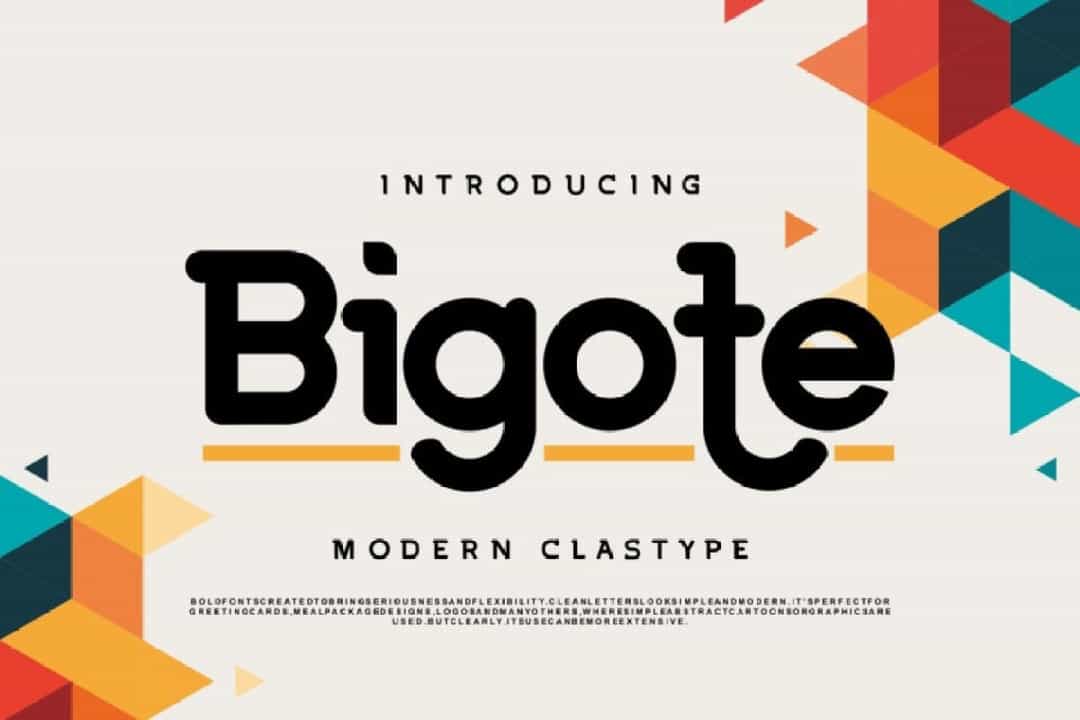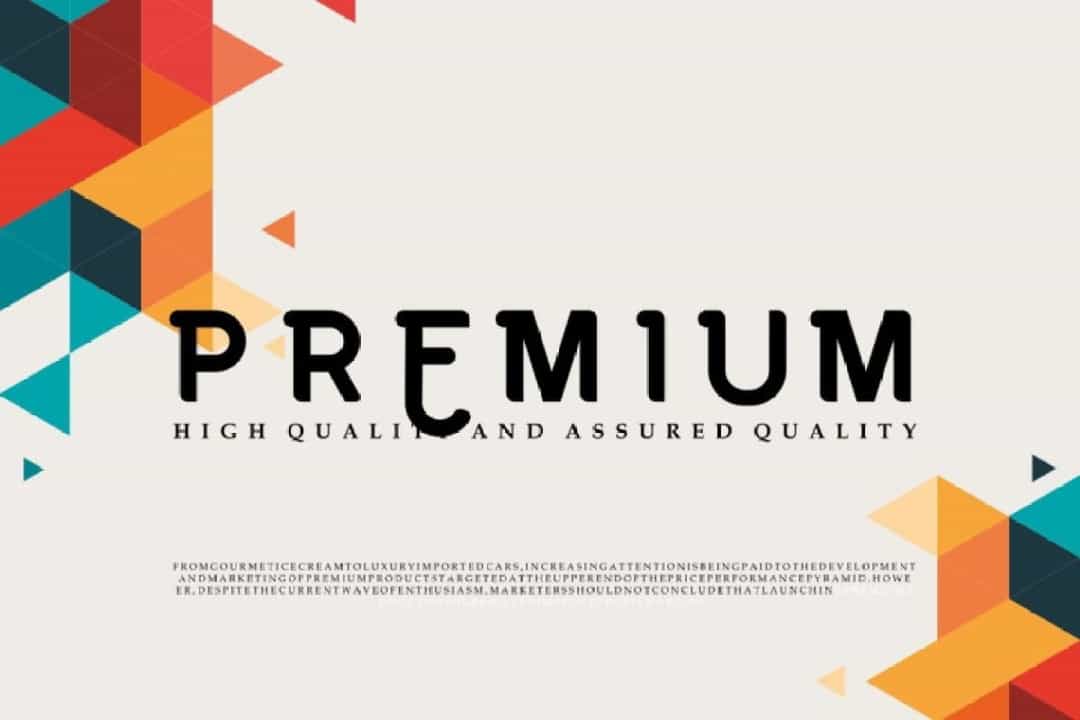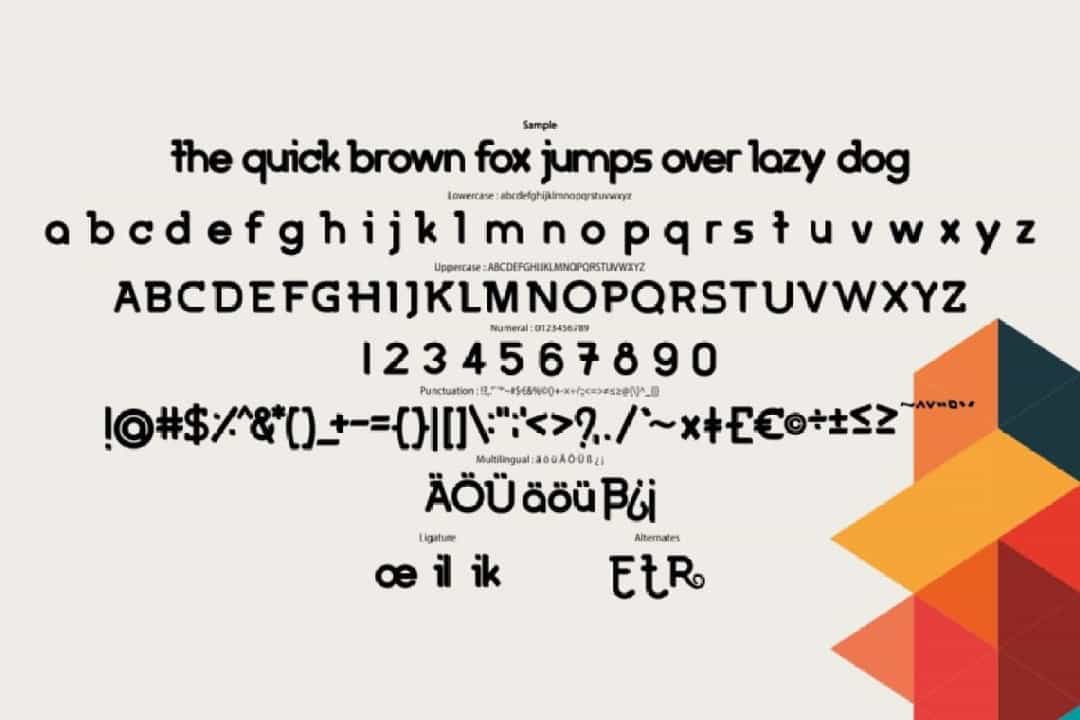
Bigote is a sophisticated and minimalist display font that contains lettering details which are well lettered. Thus, this font can be applicable in various design fields ranging from logos, branding designs, modern advertising designs, poster quotes, book/cover titles, editorial designs whether it is web-based or blog site pages and t-shirt printing. Bigote a valuable tool for designers. Take it with you and apply it to your art today to make a statement on what you care about most!